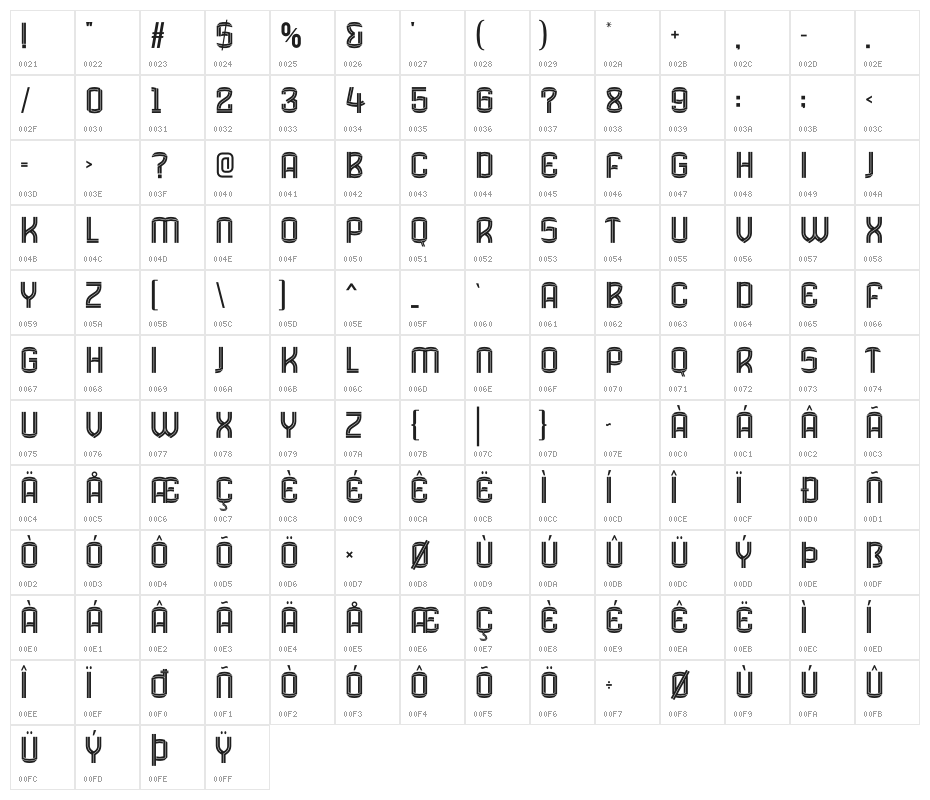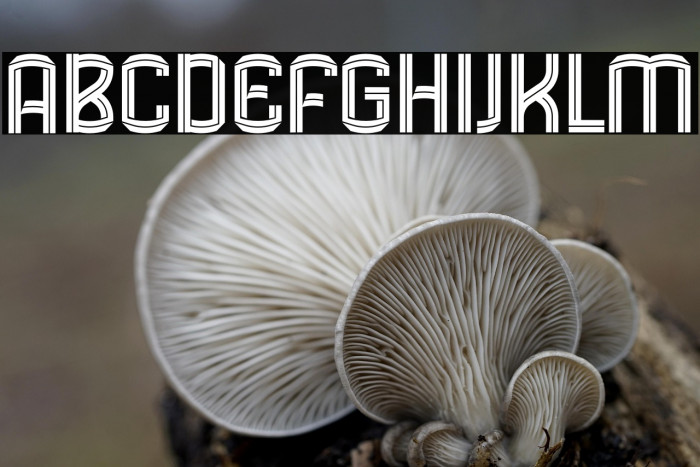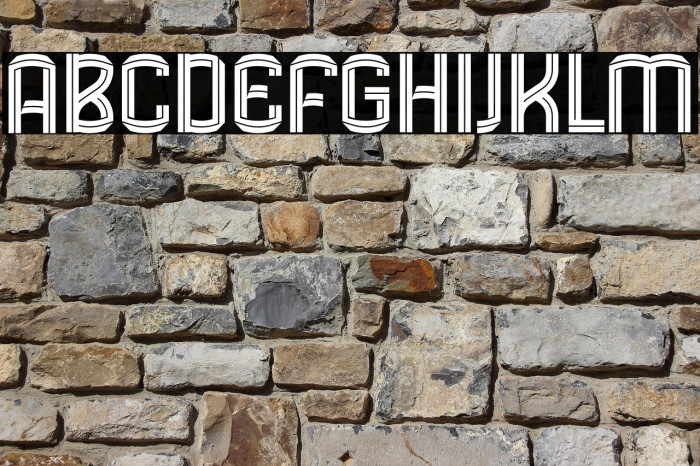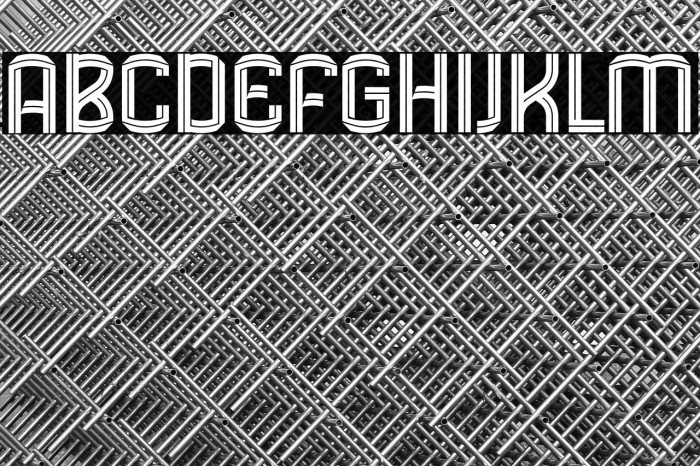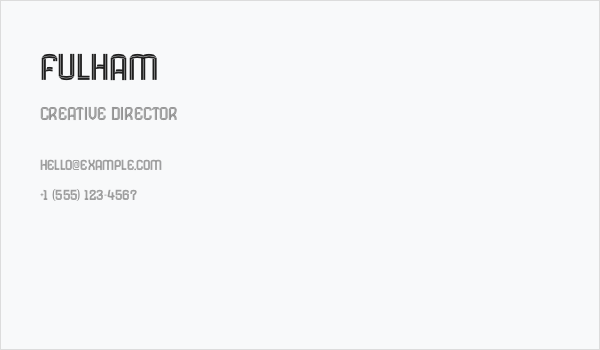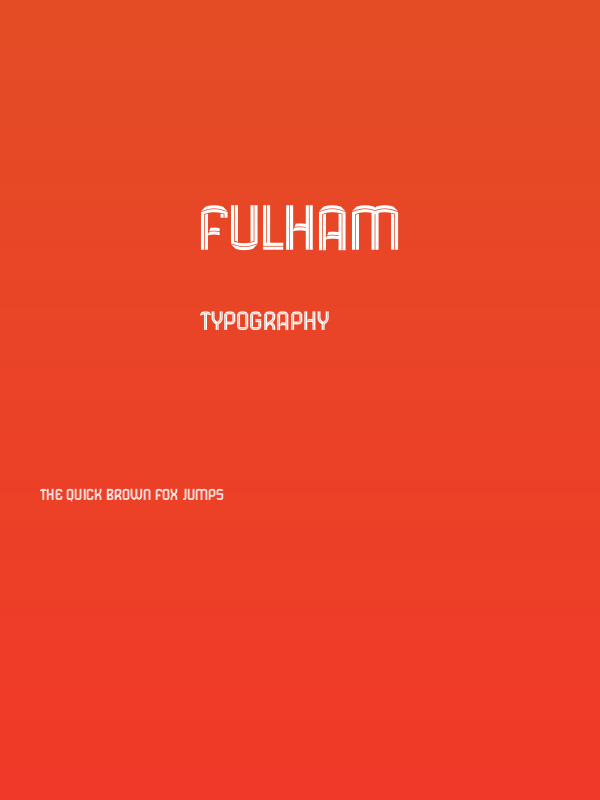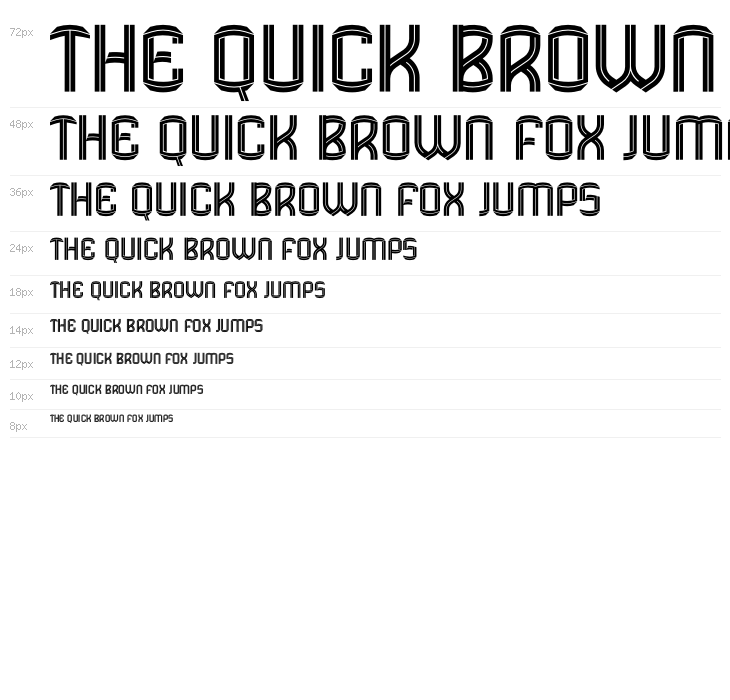
Fulham Font
Fulham Description
This font features a bold, geometric design with a distinct three-dimensional effect created by its layered lines. The uppercase letters are structured with sharp angles and a consistent width, giving them a strong, impactful presence. The numerals and special characters follow the same stylistic approach, ensuring uniformity across all characters. Its unique style is both modern and retro, making it versatile for various design applications. The font's boldness and intricate detailing make it stand out, ideal for projects that require a striking visual element.
Proposed ProjectsIdeal for posters, logos, branding, and any design requiring a bold statement.